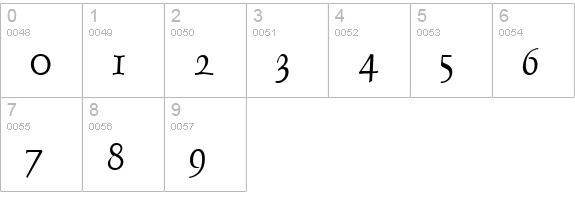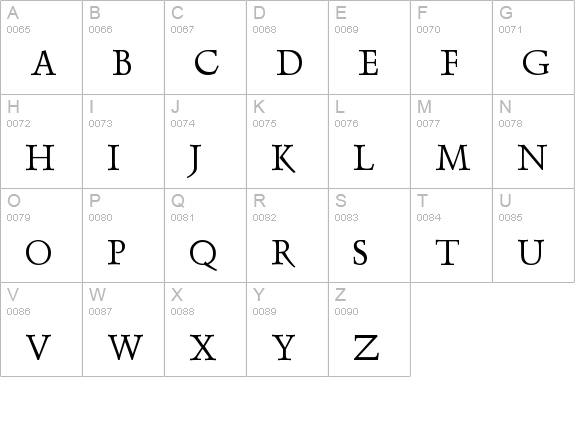
Delphin Regular is the standard, neutral variant in the Delphin typeface family \xE2\x80\x94 well suited to general body text, paragraphs, and standard typographic work.
Delphin Regular is a classic and timeless font that exudes elegance and sophistication. With its clean lines and balanced proportions, Delphin Regular is perfect for a wide range of design projects, from professional documents to creative endeavors. This versatile font is ideal for both print and digital applications, making it a valuable addition to any designer's toolkit. What makes Delphin Regular even more appealing is that it is available for free download at FontsMarket.com. This means that you can access this high-quality font without any cost, allowing you to elevate your designs without breaking the bank. Whether you're working on a branding project, a website design, or a printed publication, Delphin Regular will bring a touch of refinement and style to your work. Download Delphin Regular today and see the difference it can make in your designs.